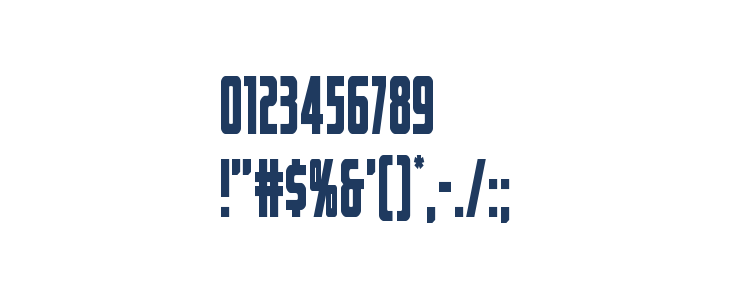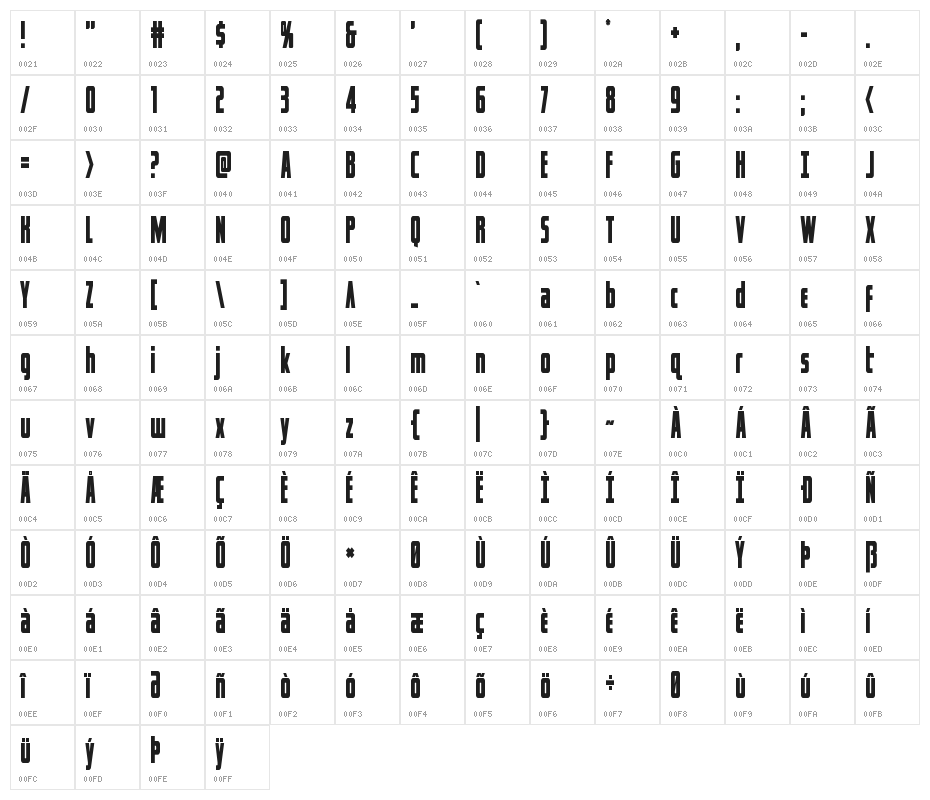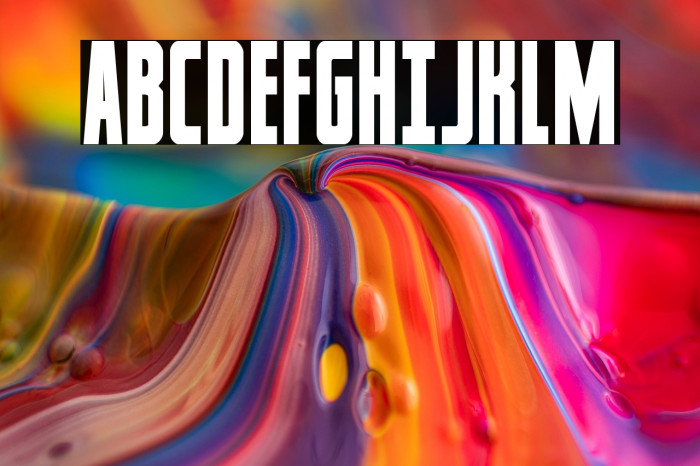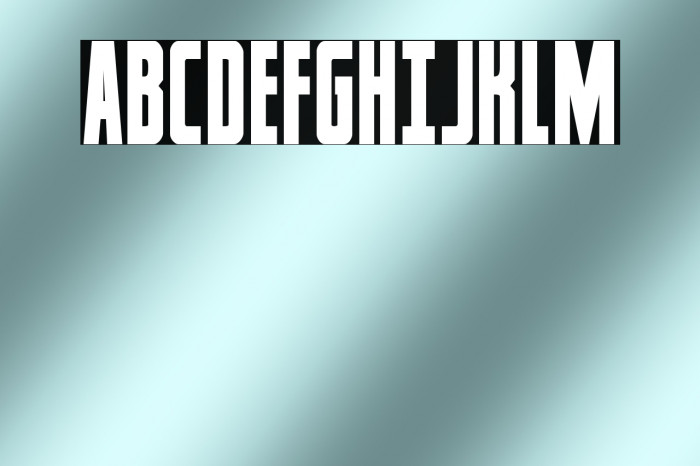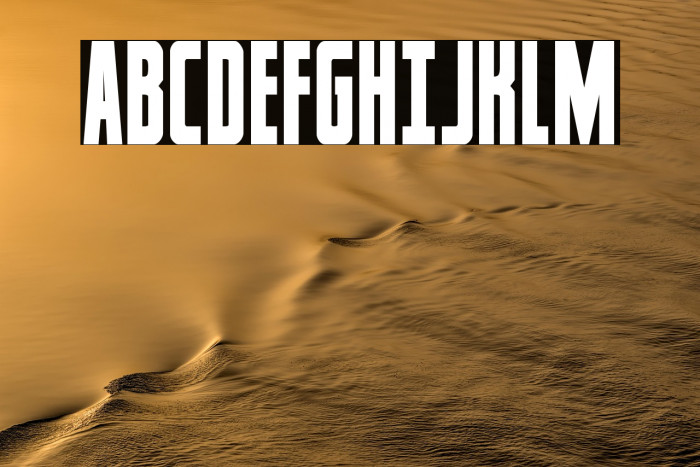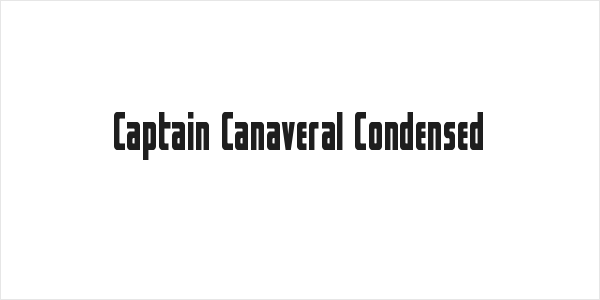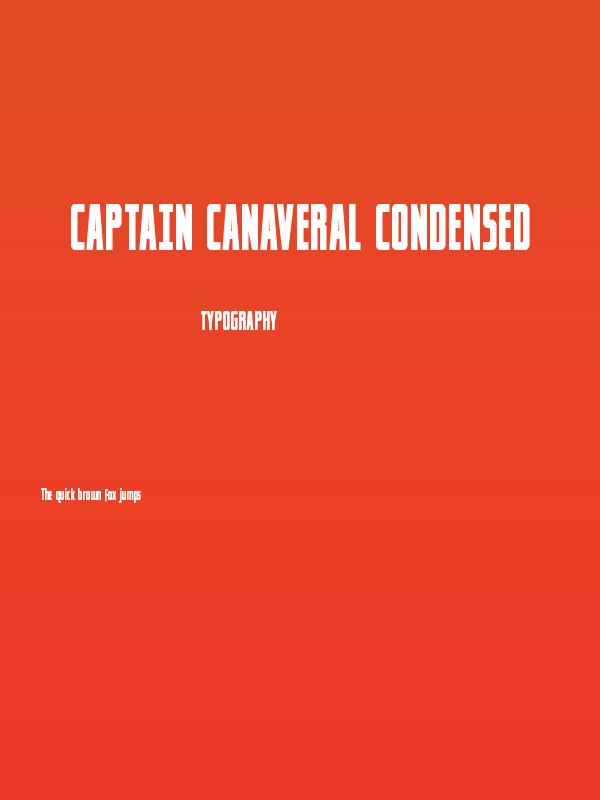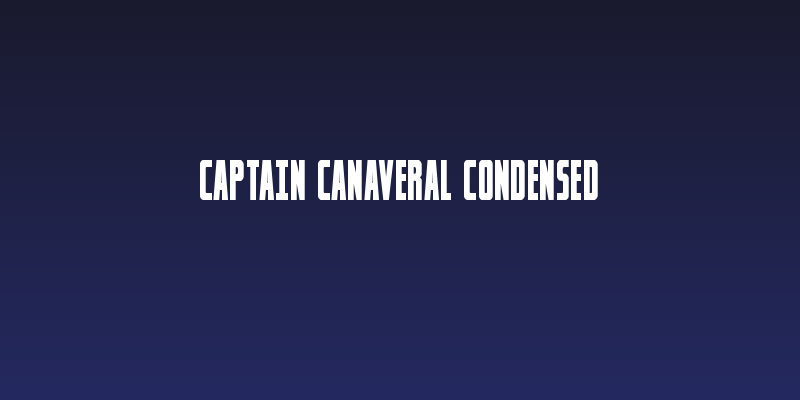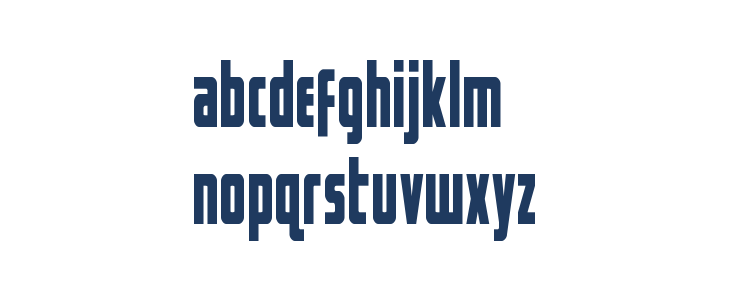
Captain Canaveral Condensed Font
Captain Canaveral Condensed Description
This font features a bold and condensed style, characterized by its strong vertical emphasis and minimal spacing between characters. The uppercase letters are particularly striking, with a uniform height that enhances readability and impact. The lowercase letters maintain a consistent design, complementing the uppercase with slightly rounded edges that soften the overall appearance. Numbers and special characters are designed to match the boldness of the alphabet, ensuring a cohesive look across all text elements. The font's condensed nature makes it ideal for space-saving applications while still delivering a powerful visual statement.